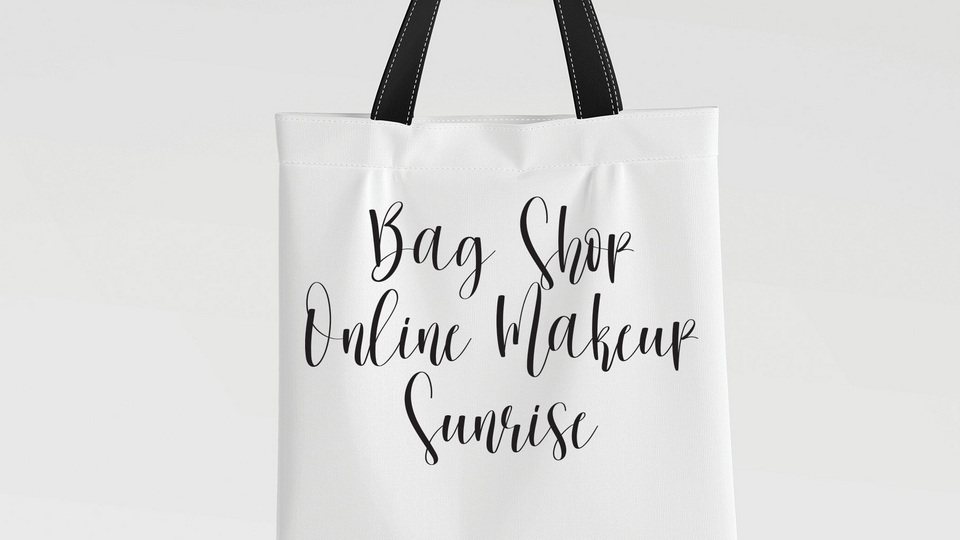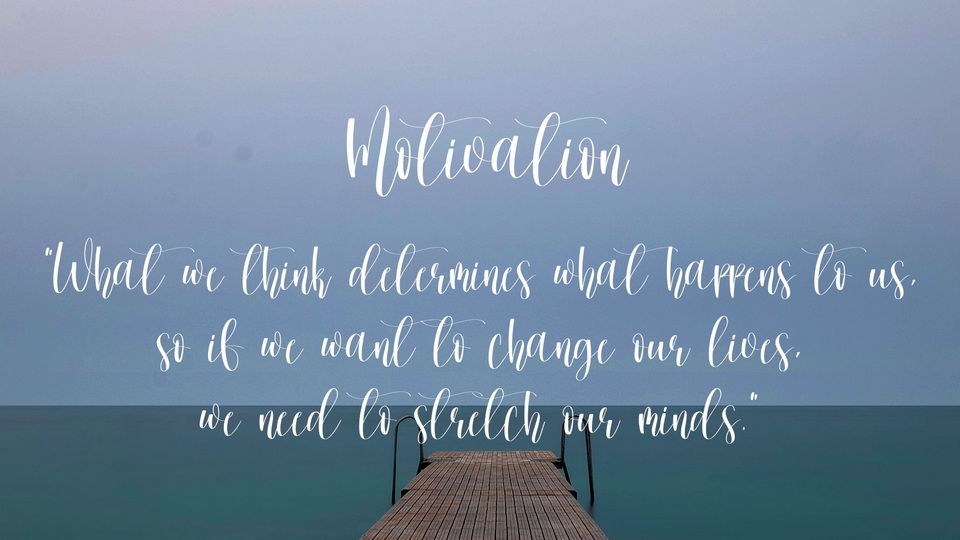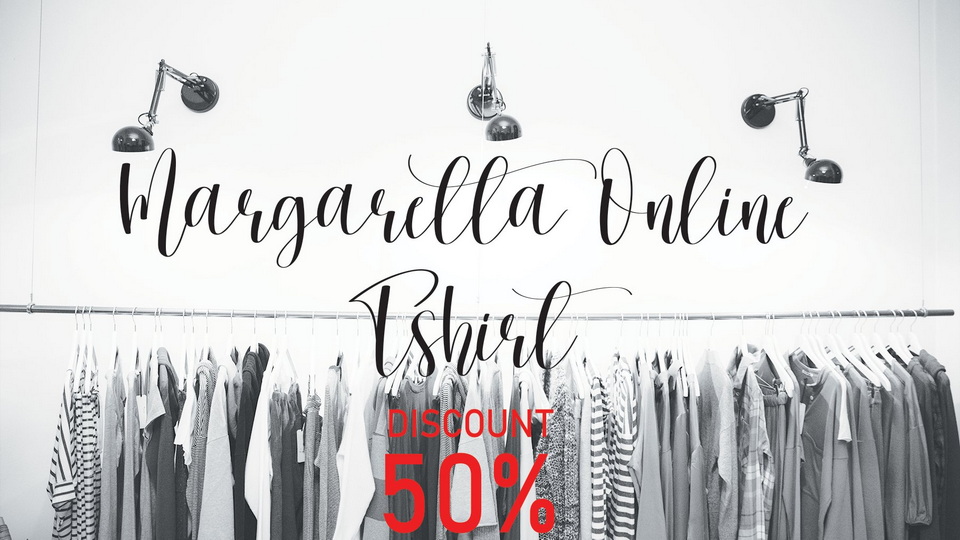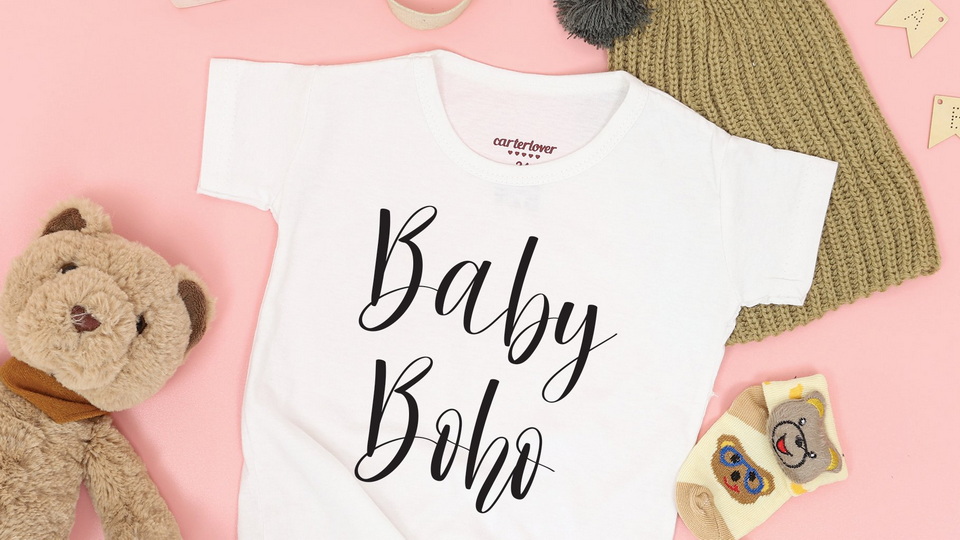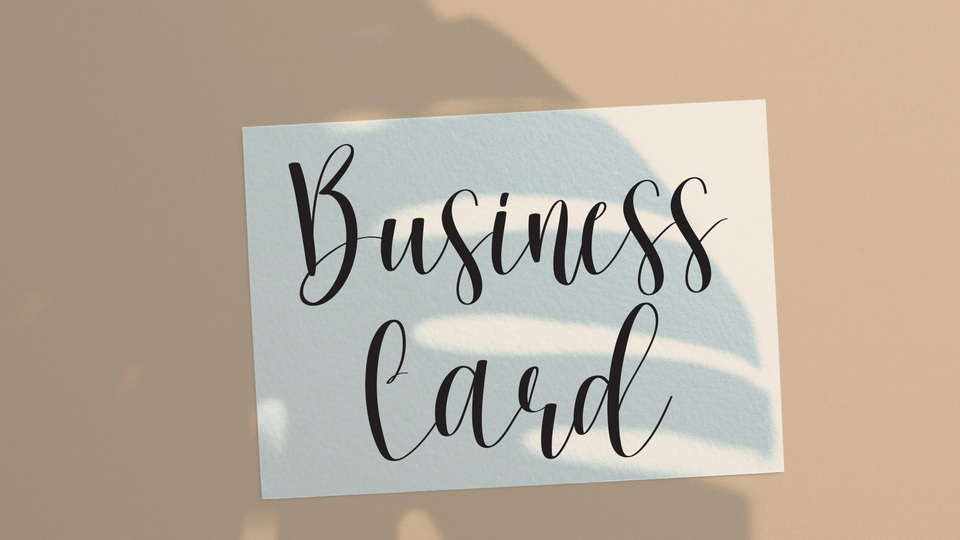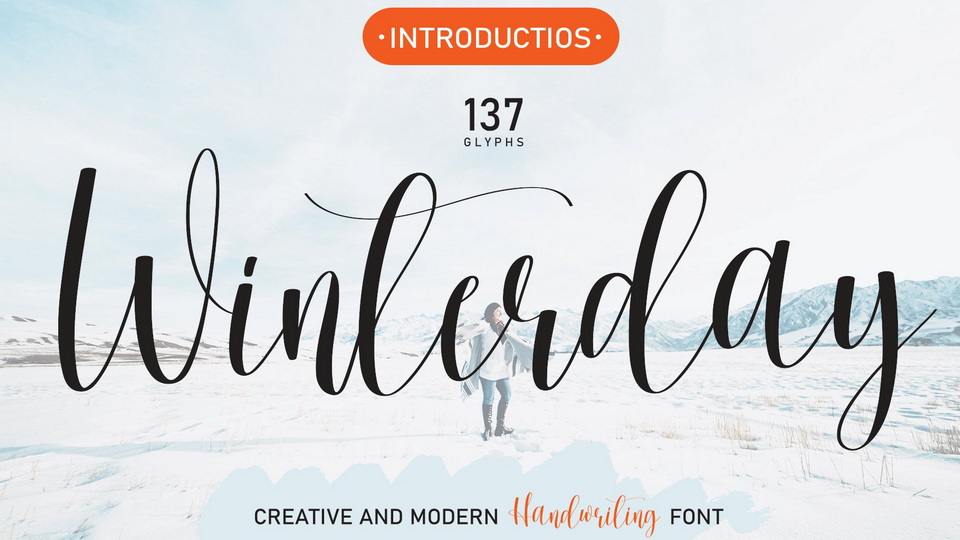
Winterday Font
Winterday is an elegant handwritten font made of beautiful creative strokes. This font is perfect for your creative ideas, both formal and informal.
Winterday font is perfect for wall displays, wedding invitations, social media post logos, advertisements, product packaging, labels, photography, watermarks, invitations, stationery and any project that requires taste handwriting.